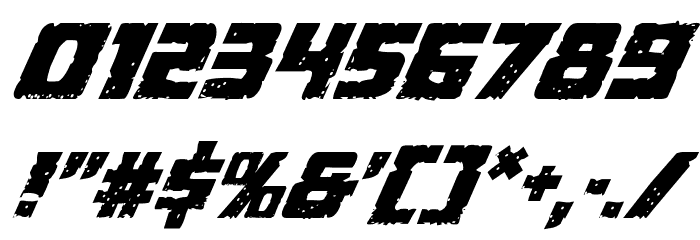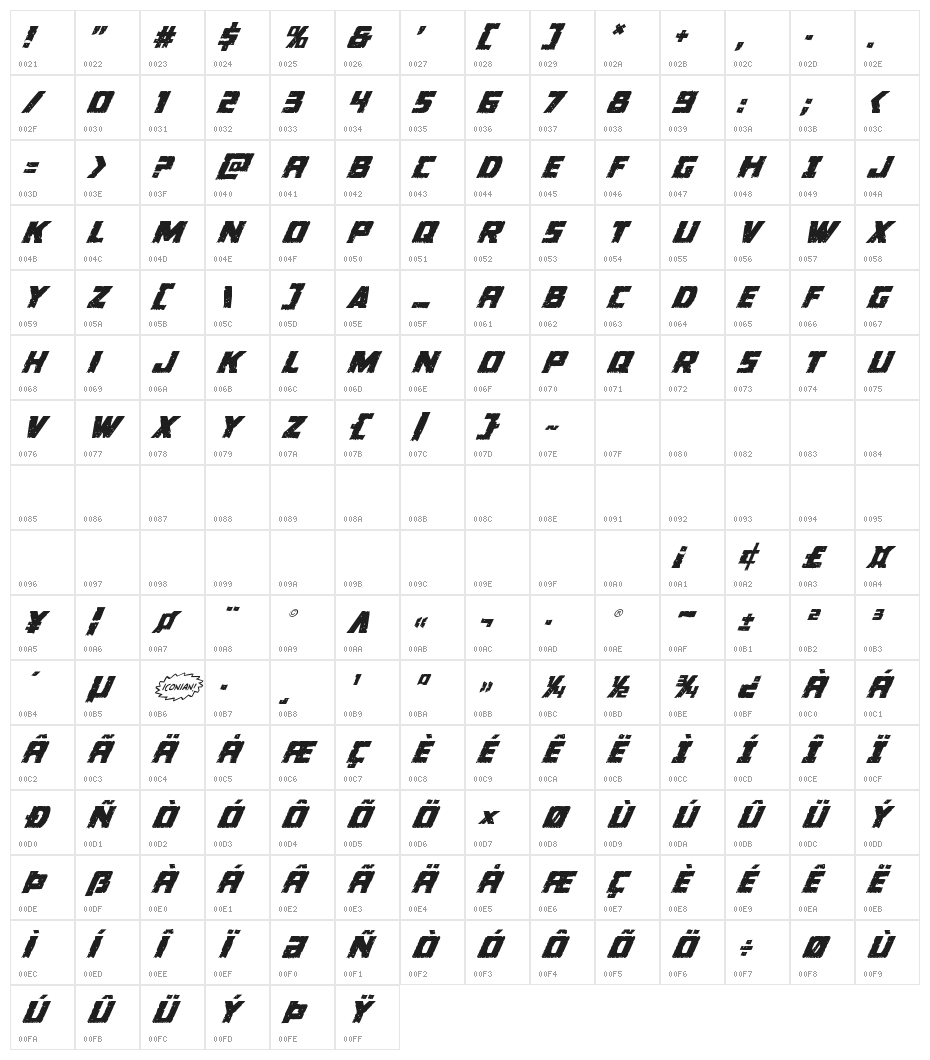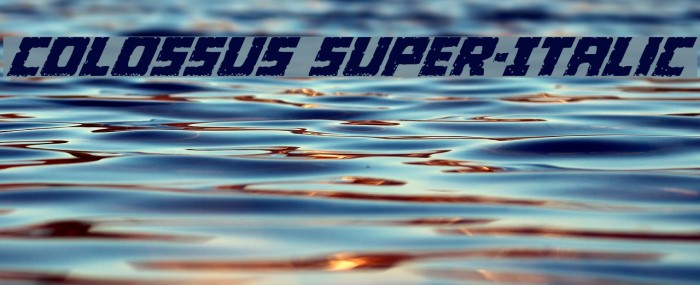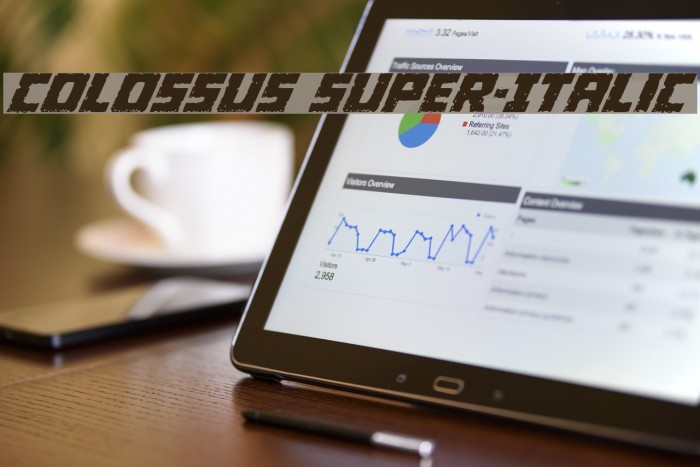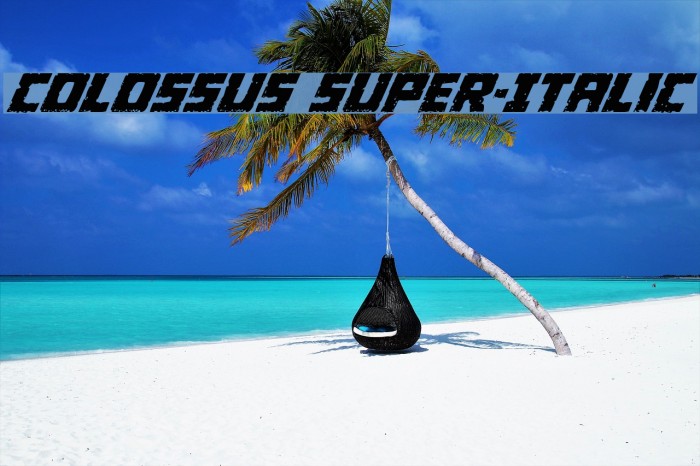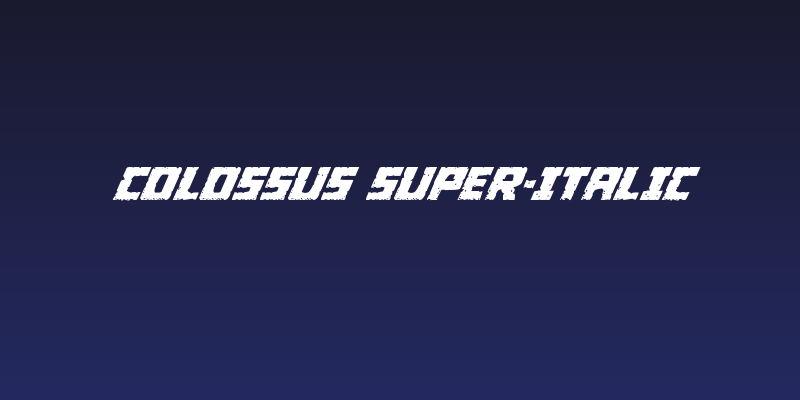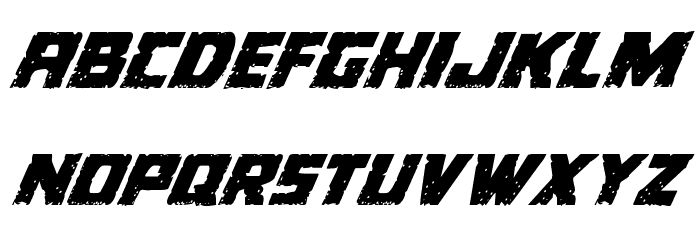
Colossus Super-Italic Font
Colossus Super-Italic Description
This font features a bold and dynamic style with a strong italic slant, giving it a sense of motion and energy. The characters are heavily textured, with a distressed, grunge-like appearance that adds a rugged and edgy feel. The uppercase and lowercase letters maintain a consistent style, with sharp angles and a slightly condensed form. The numerals and special characters follow the same aesthetic, ensuring uniformity across all glyphs. This font's unique design makes it stand out, ideal for projects that require a bold statement.
Overall StyleModern, Edgy
Proposed ProjectsIdeal for posters, album covers, sports branding, and any project needing a bold, energetic look.